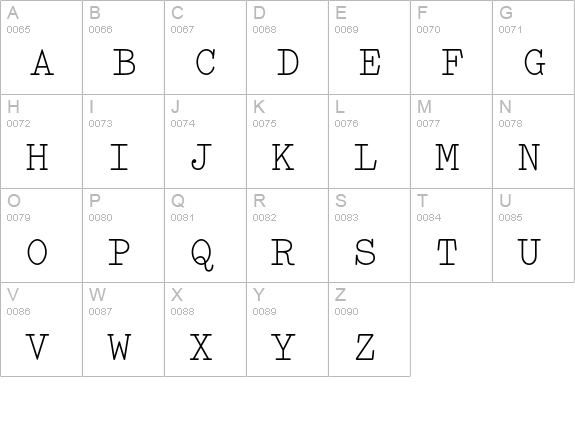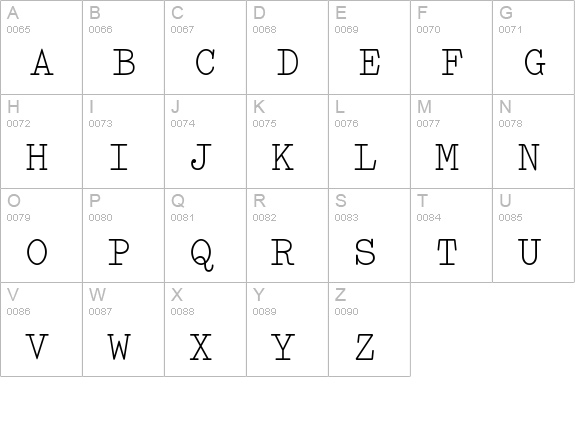
Elementa Regular is the standard, neutral variant in the Elementa typeface family \xE2\x80\x94 well suited to general body text, paragraphs, and standard typographic work.
Elementa Regular font is a versatile and modern typeface designed for various design projects. With its clean lines and sleek appearance, this font is perfect for both digital and print applications. Whether you are creating a website, designing a logo, or working on a marketing campaign, Elementa Regular font will bring a touch of elegance and professionalism to your work. The best part is that Elementa Regular font is free to download at FontsMarket.com. This means you can easily access this high-quality font without any cost, making it a valuable resource for designers, students, and anyone looking to enhance their projects with a sophisticated typeface. Don't miss out on the opportunity to use Elementa Regular font in your next design project and elevate your work with its timeless appeal.